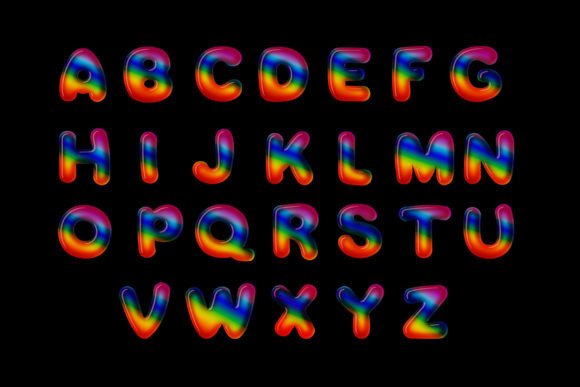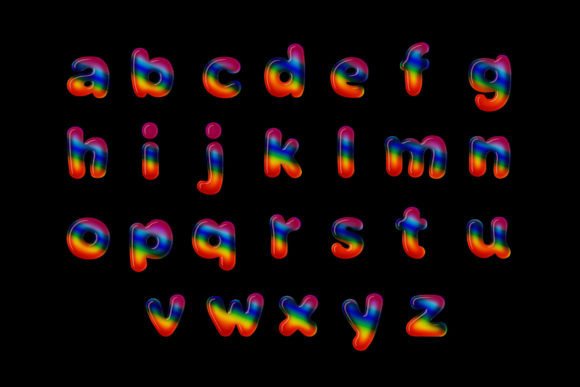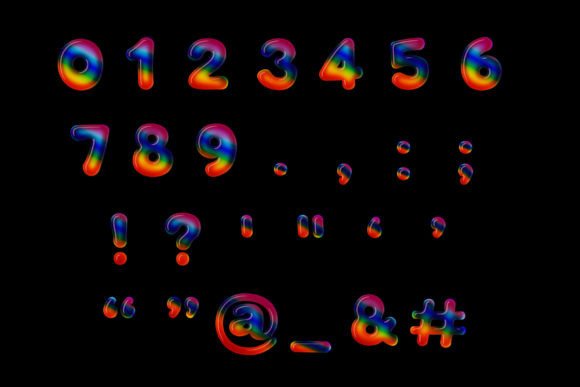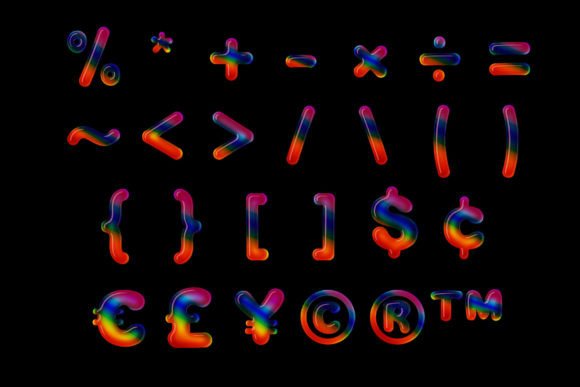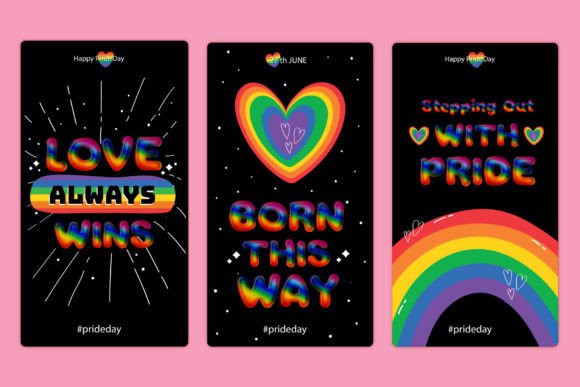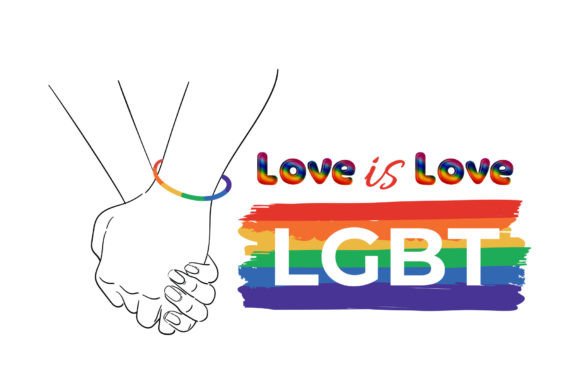
Discover the Whimsical World of Bubbles Rainbow Font
Have you ever been in the middle of a design project, and suddenly, you just can’t seem to find the perfect font? I recall a recent experience where I was working on a fun craft project for a client, and I needed a font that would capture the playful essence of her brand. After scouring through countless font libraries, I stumbled upon the delightful Bubbles Rainbow Font. It was love at first sight! 🌈
A Beautiful and Cute Rainbow-Colored Font
Bubbles Rainbow Font is a stunning, rainbow-colored font that’s sure to add a touch of whimsy to any design project. Its unique, bubbly aesthetic makes it perfect for crafters, designers, and creative hobbyists looking to add some personality to their work. With Bubbles Rainbow, you can create eye-catching designs that are sure to inspire others.
• ✨ Unique, rainbow-colored design that’s sure to stand out
• ✅ Easy to read and works well for both headings and body text
• 🌈 Perfect for design projects that require a playful, creative touch
While Bubbles Rainbow Font is an amazing addition to any design project, there are a few things to keep in mind. 🤔
The Designer Inspiration Behind Bubbles Rainbow Font
While the true story behind Bubbles Rainbow Font remains a mystery, it’s easy to imagine that its designer was inspired by the whimsical world of childhood. Perhaps they were influenced by the bright colors and playful patterns found in kids’ books, toys, and games. Whatever the inspiration, Bubbles Rainbow Font is sure to bring a touch of magic to any design project.
Q: What is the best way to use Bubbles Rainbow Font?
A: Bubbles Rainbow Font is perfect for design projects that require a playful, creative touch. Use it for headings, titles, and body text to add visual interest and personality to your design.